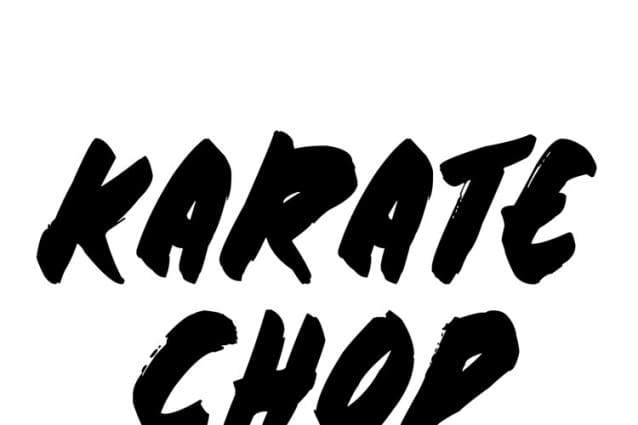
Karate Chop Font
Karate Chop Font, Cool handwritten brush font.  Perfect for advertising and display purposes, including banners, book covers, shirts, posters, logos and much more!